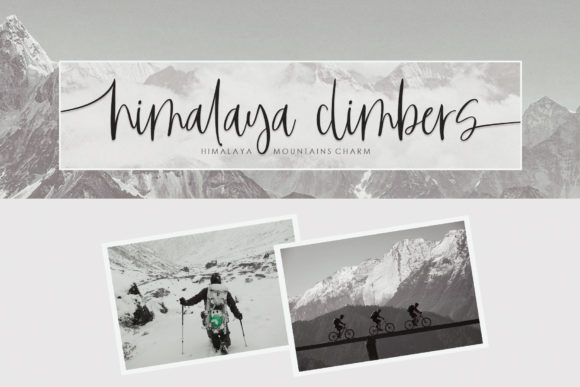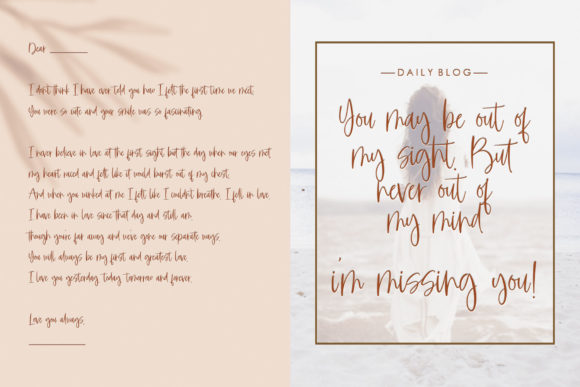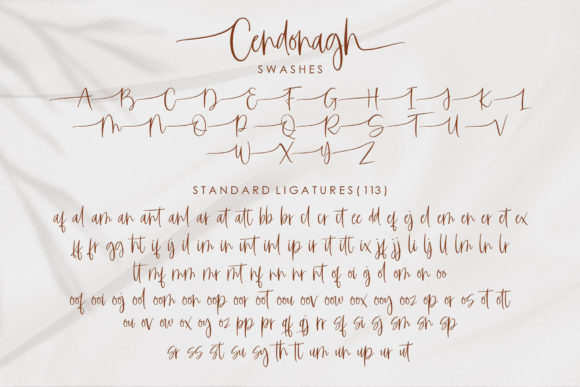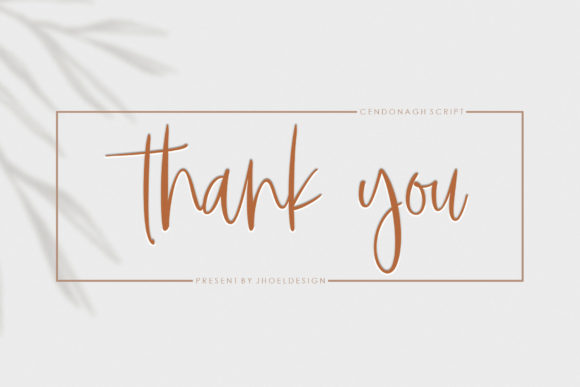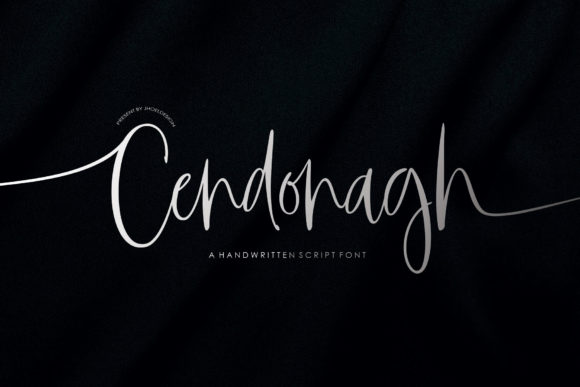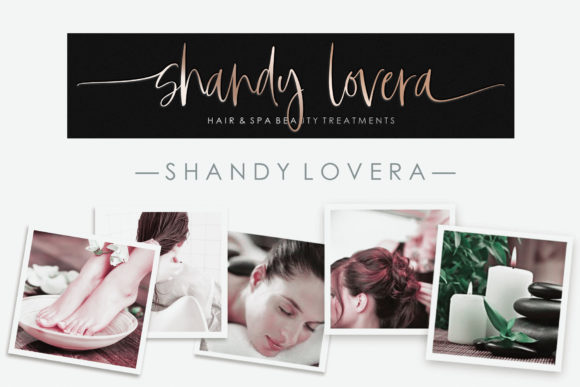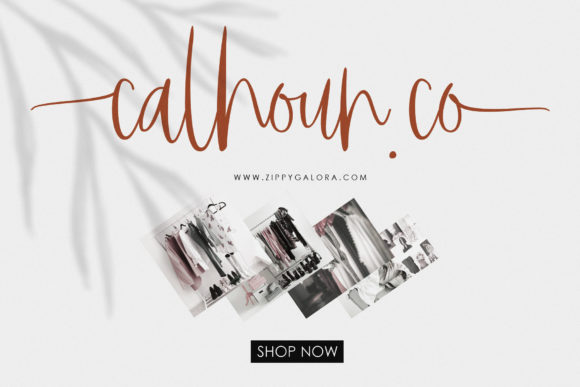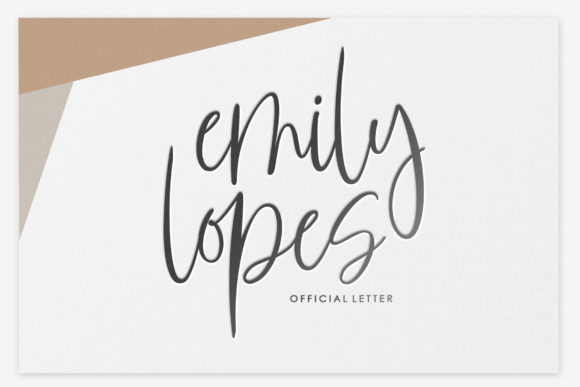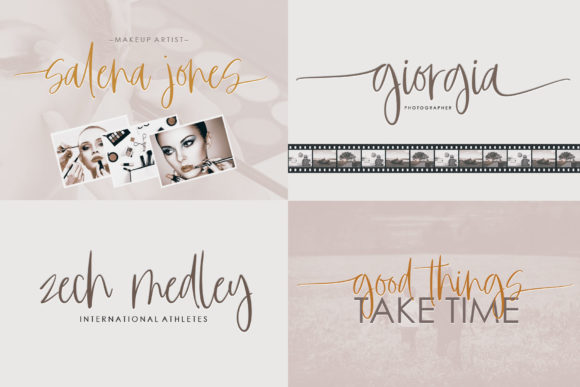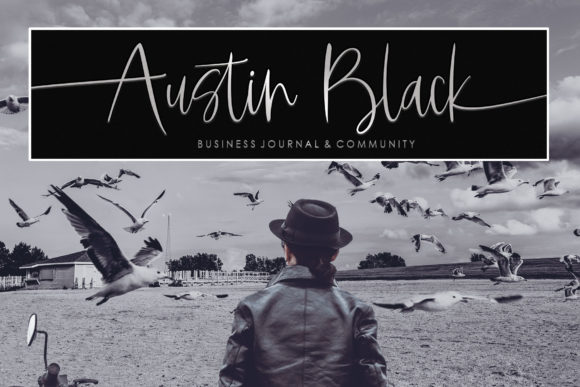
HomeScript FontsCendonagh Font Script Fonts Cendonagh Font FacebookXPinterestWhatsApp Cendonagh Font Poster 2 Cendonagh Font Poster 3 Cendonagh Font Poster 4 Cendonagh Font Poster 5 Cendonagh Font Poster 6 Cendonagh Font Poster 7 Cendonagh Font Poster 8 Cendonagh Font Poster 9 Cendonagh Font Poster 10 Cendonagh Font Poster 11 Cendonagh Font Poster 12 Cendonagh Font Poster 13 Cendonagh Font Poster 14 Cendonagh Font Poster 15 About Cendonagh Font Cendonagh is a simple and sweet script that will turn any design idea into a true piece of art. DOWNLOAD NOW People also explored Murasaki Astel Heroes Font Farmhouse Children Font Dontown Shotter Font Alexandros Font Hey Pumpkin Font Yardmore Font Ushukering Font 338 0 TagsCendonagh Font Previous articleUnderhand FontNext articleHardwork Font LEAVE A REPLY Cancel reply Comment: Please enter your comment! Name:* Please enter your name here Email:* You have entered an incorrect email address! Please enter your email address here Website: Save my name, email, and website in this browser for the next time I comment. Personal Use Free New Amsterdam Personal Use Free Read more about this font Triangular Curves Personal Use Free Read more about this font Coolvetica Font Personal Use Free Read more about this font Strings Personal Use Free Read more about this font BLOG Free vs Paid Fonts: Why Investing in Premium Fonts Is Worth It Free vs Paid Fonts: Why Premium Fonts Are Worth It in 2025 The debate of free vs paid fonts continues in the design world. While... Elegant Wedding Invitation Fonts – Handwritten & Script Fonts Modern Sans-Serif Fonts That Brands Love in 2025 Exploring Font Trends